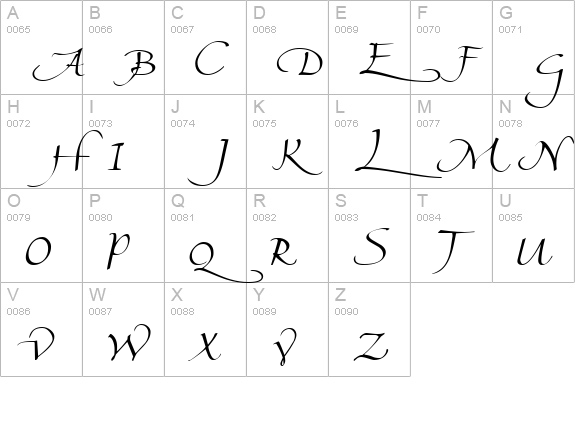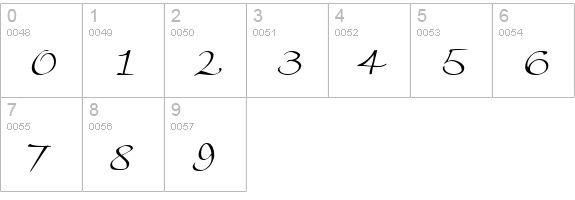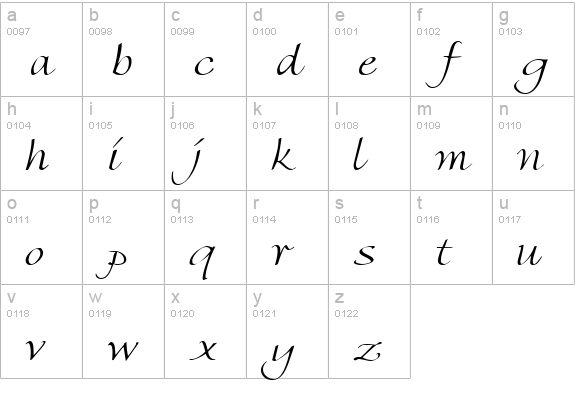
FlorentineSwashCaps Regular is the standard, neutral variant in the FlorentineSwashCaps typeface family \xE2\x80\x94 well suited to general body text, paragraphs, and standard typographic work.
FlorentineSwashCaps Regular font is a stunning display typeface that exudes elegance and sophistication. With its intricate swashes and decorative flourishes, this font is perfect for adding a touch of luxury to your designs. The ornate details of FlorentineSwashCaps Regular make it an ideal choice for invitations, branding, and other projects that require a touch of refinement. Best of all, FlorentineSwashCaps Regular font is available for free download at FontsMarket.com. This means you can easily access this beautiful typeface without any cost. Don't miss out on the opportunity to elevate your designs with the timeless charm of FlorentineSwashCaps Regular font. Download it today and add a touch of class to your projects.